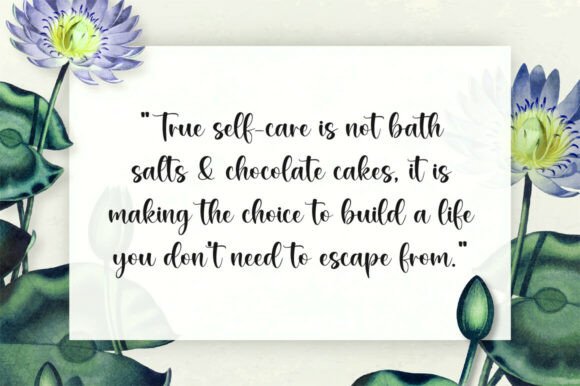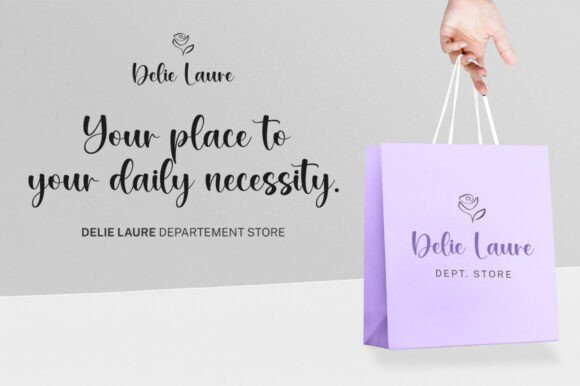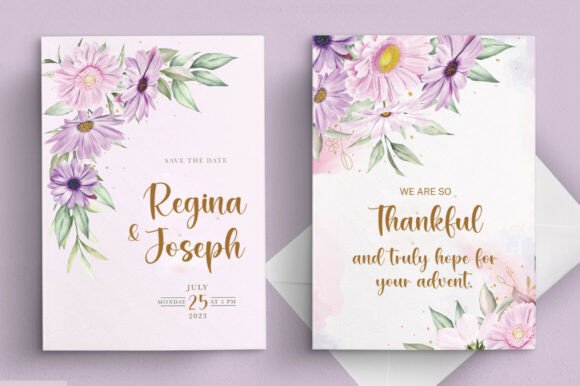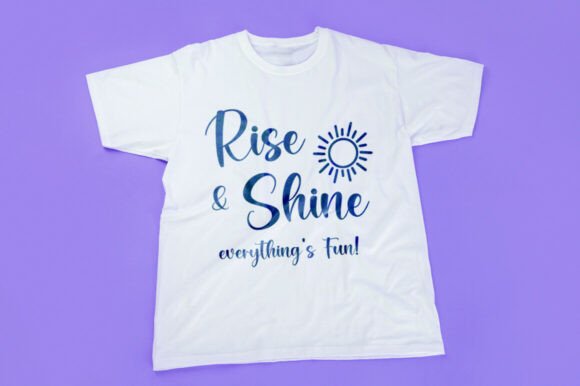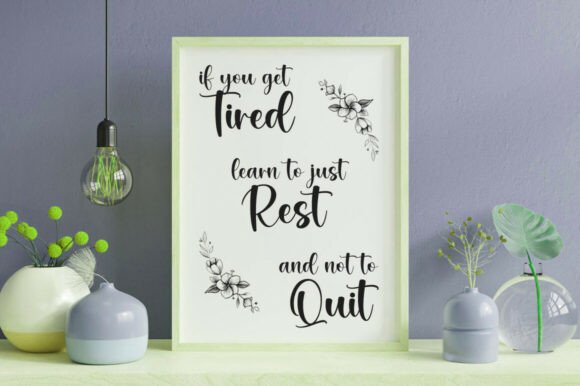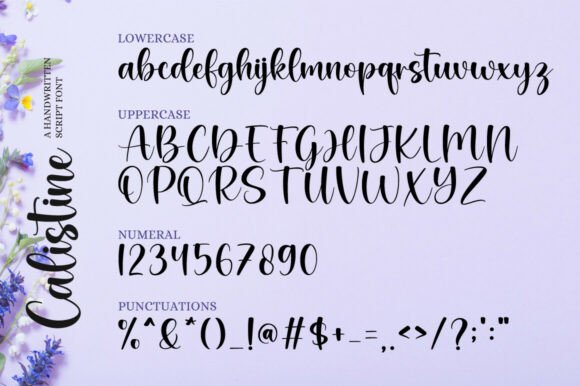
The Elegance of Calistine Font: A Designer’s Delight
I’ll never forget the time I was working on a wedding invitation project, and my client asked for a font that exuded sophistication and elegance. I scoured the internet, tried out countless fonts, but nothing seemed quite right. That was until I stumbled upon Calistine Font. ✨ It was love at first sight! The delicate and refined script font instantly captured the essence of what my client was looking for. In this article, I’ll share with you why I’m obsessed with Calistine Font and how you can make the most of its incredibly versatile style.
An Honest Review of Calistine Font
- ✨ Elegant and sophisticated design that’s perfect for wedding invitations, stationary art, and social media posts.
- ✅ Highly versatile and adaptable to various design projects.
- 💫 Beautifully crafted letters and glyphs that add a touch of luxury to any design.
- 🎨 Extensive range of OpenType features, including stylistic alternates and ligatures.
While Calistine Font is an amazing font, there are a few things to keep in mind: ⚠️
- 🤔 Some users may find the font a bit too delicate for certain design projects, such as bold or large-scale designs.
- ⚠️ The font may not be suitable for body text or long-form content due to its script nature.
The Designer Inspiration Behind Calistine Font
Calistine Font was inspired by the classic script fonts of the 18th century, with a modern twist. The designer aimed to create a font that exudes elegance and sophistication, while still being versatile and adaptable to various design projects. The result is a beautiful font that’s perfect for creating stunning wedding invitations, stationary art, and social media posts.
| Font Name | Calistine Font |
| Author | Graphix Line Studio |
| What is Calistine Font best used for? | Calistine Font is best used for creating elegant and sophisticated designs, such as wedding invitations, stationary art, and social media posts. |
| Is Calistine Font suitable for body text? | No, Calistine Font is not suitable for body text or long-form content due to its script nature. |
| Does Calistine Font have OpenType features? | Yes, Calistine Font has extensive OpenType features, including stylistic alternates, ligatures, and glyphs. |